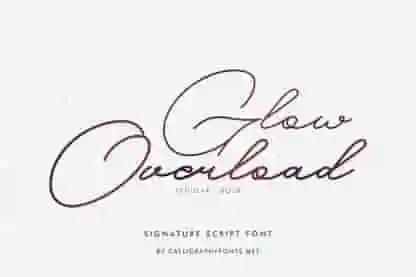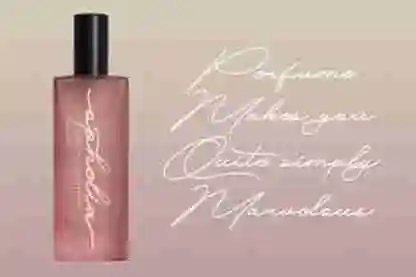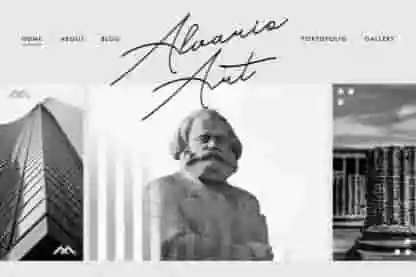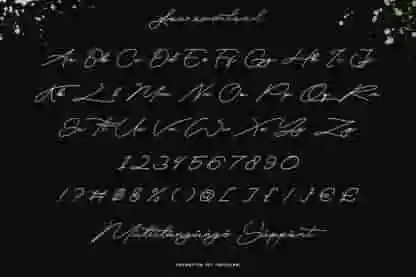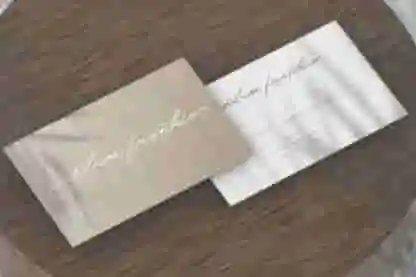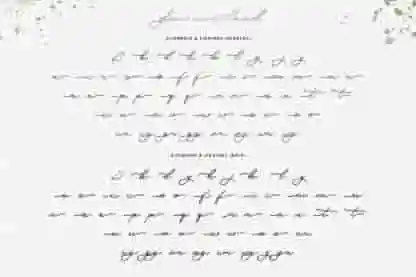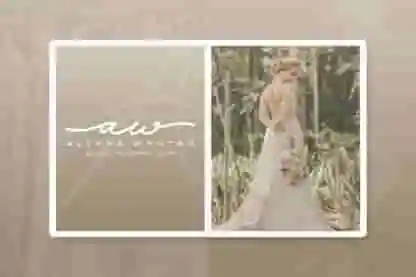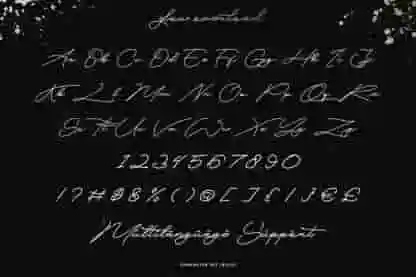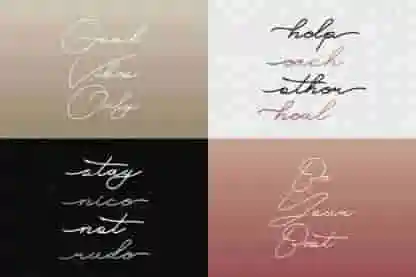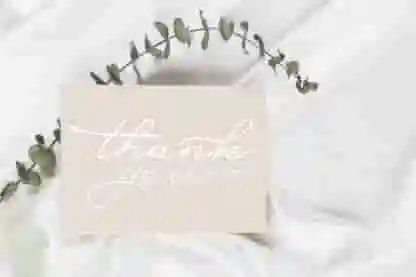
Glow Overload Font
Glow Overload Font is a Handwriting Signature Font designed by CalligraphyFonts.net
Glow Overload Font is is a signature handwriting script Font with a unique original style. The theme of this font are casual, modern, elegant, luxury, handwritten, classic and simple lettering.
Glow Overload Font has two styles : reguler and bold. Both fonts tested Work well on PC & Mac.